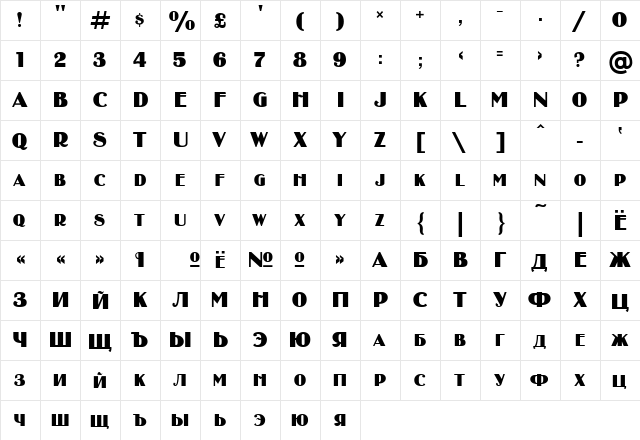
Binner_Di Regular
Design Context for Binner_Di Typeface
Binner_Di is a composed and adaptable typeface that performs quietly and consistently across a wide range of design contexts.